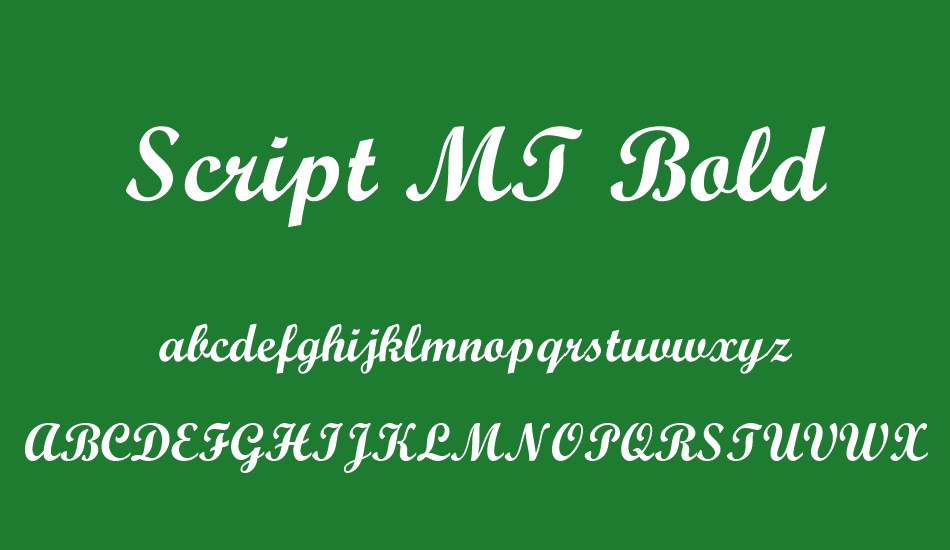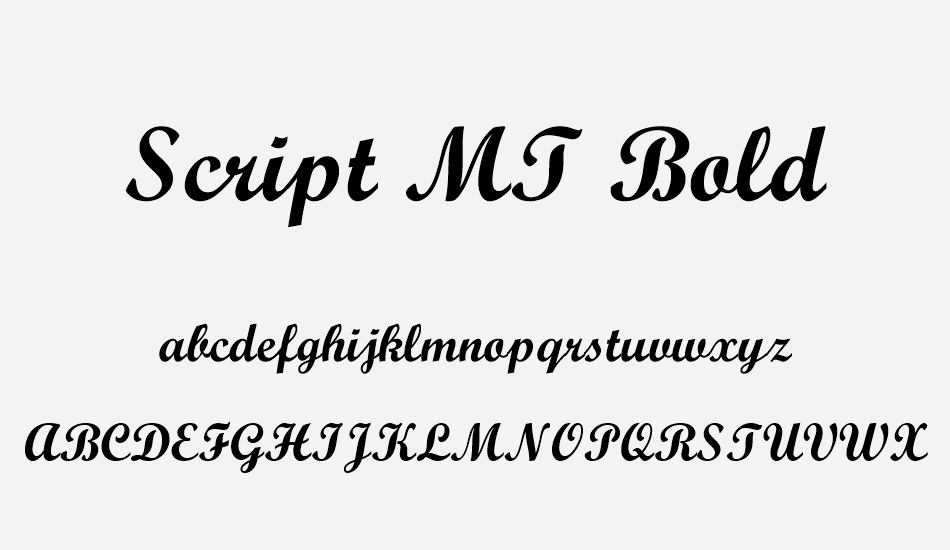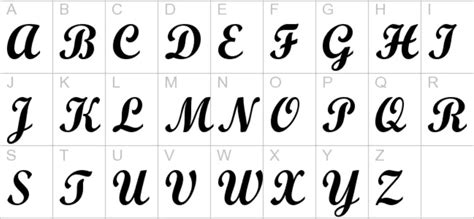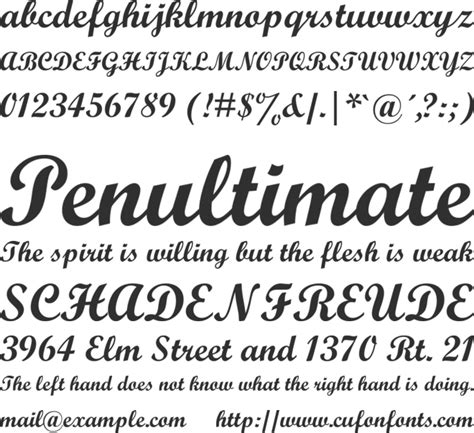
Font Script Mt Bold
Script mt bold is an ideal font choice for adding a playful touch to your designs, featuring a font subfamily categorized as regular. Script mt bold is a bold opentype font. 6 users have given the font a rating of 4.5 out of 5. Browse by alphabetical listing, by style, by author or by popularity. Click to find the best.
Script MT Bold Font
Script MT Bold Regular truetype font
Script mt bold is an ideal font choice for adding a playful touch to your designs, featuring a font subfamily categorized as regular. 6 users have given the font a rating of 4.5 out of 5. Archive of freely downloadable fonts. Every font is free to download! Browse by alphabetical listing, by style, by author or by popularity.
Script MT Bold font Font Tr
Click to find the best 6 free fonts in the script mt bold style. It has been downloaded 1953 times. Browse by alphabetical listing, by style, by author or by popularity. Every font is free to download! Script mt bold is an ideal font choice for adding a playful touch to your designs, featuring a font subfamily categorized as regular.
font script mt bold ile ilgili görsel sonucu Embroidery fonts
Script mt bold is an ideal font choice for adding a playful touch to your designs, featuring a font subfamily categorized as regular. Looking for script mt bold fonts? It has been downloaded 1953 times. Every font is free to download! 6 users have given the font a rating of 4.5 out of 5.
Click To Find The Best 6 Free Fonts In The Script Mt Bold Style.